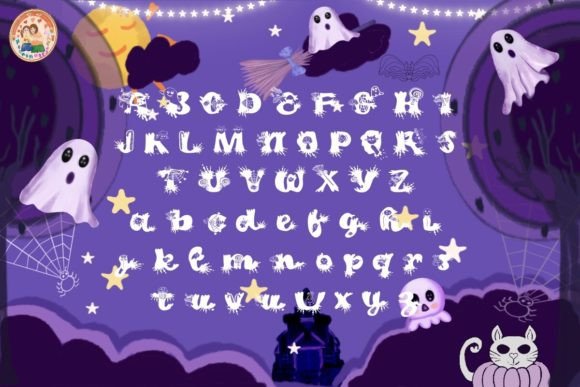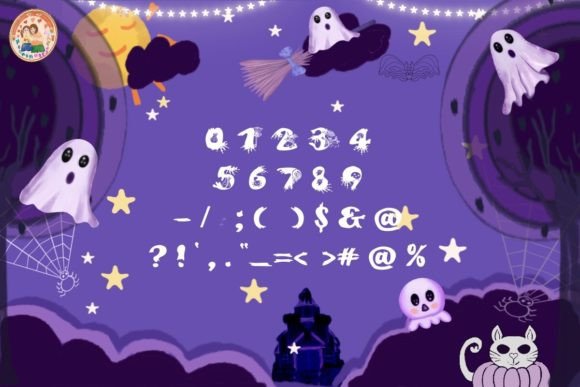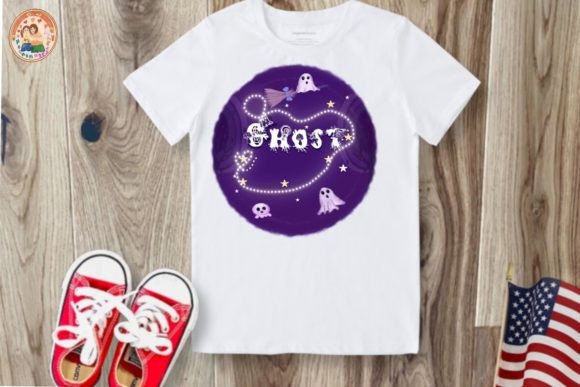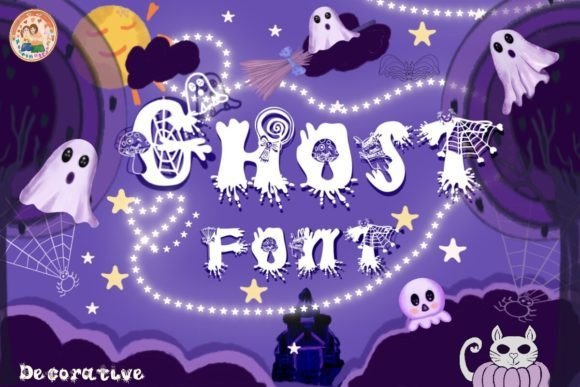
Introduction to Ghost Fonts Font
Ghost Halloween is a cute and fun Halloween font.
Ghost Halloween is a cute and fun Halloween font. It’s perfect for any October project